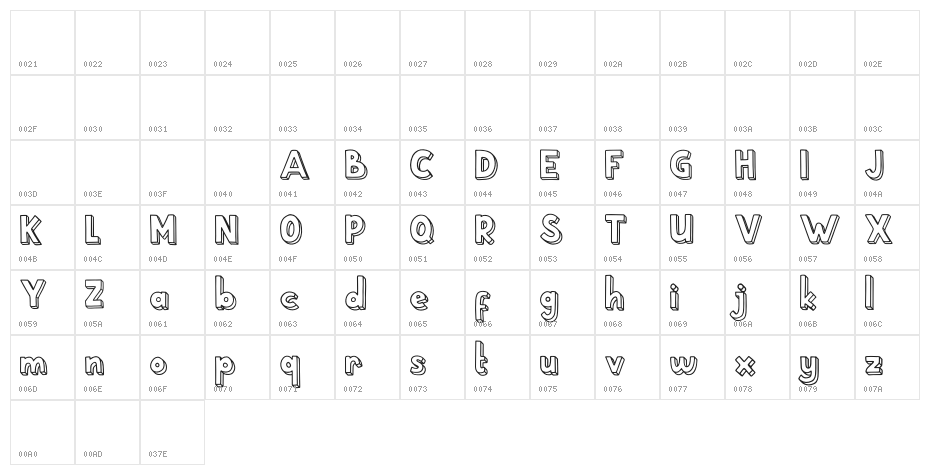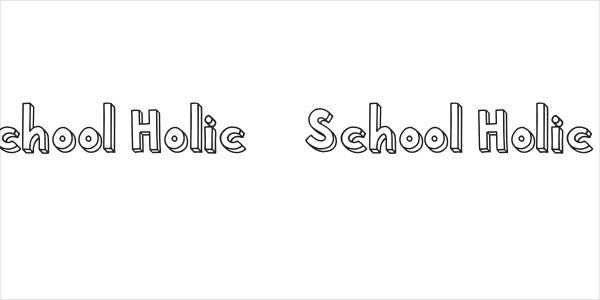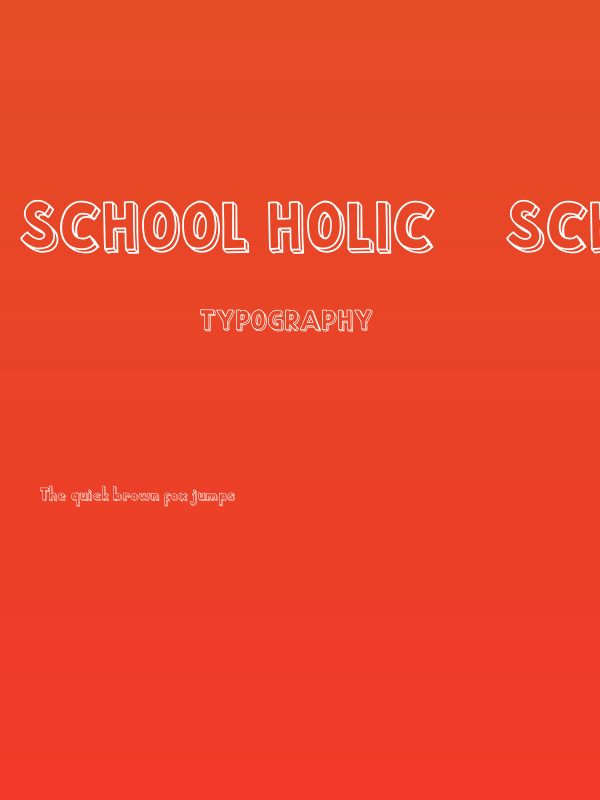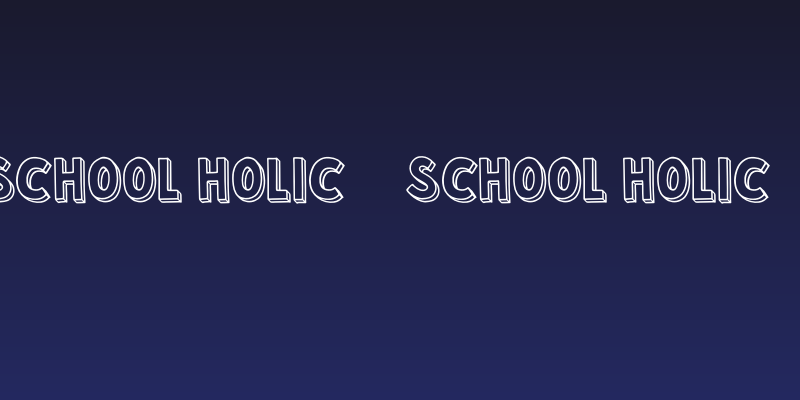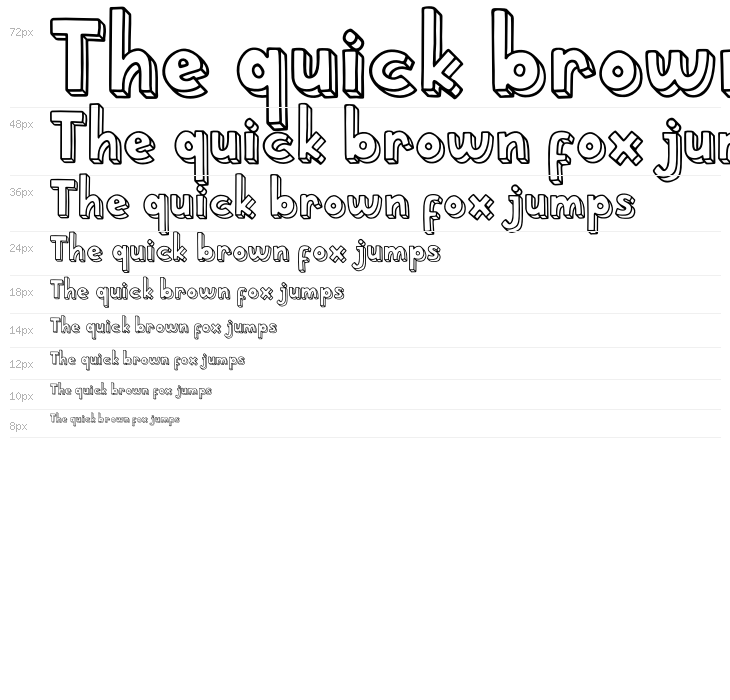
School Holic 4 Font
School Holic 4 Description
This playful and bold font features a unique hand-drawn style with a three-dimensional effect. The letters are outlined with a thick black line, giving them a cartoonish and whimsical appearance. Each character has a shadow-like effect that adds depth and interest. The font maintains a consistent width and height across all characters, ensuring readability while still being visually engaging. Its informal and fun design makes it perfect for projects that require a light-hearted and creative touch. The font's distinctive style is ideal for capturing attention and conveying a sense of playfulness.
| Use Case | Headlines, Posters, Educational Materials |
| Proposed Projects | Ideal for children's books, comic strips, playful posters, and educational materials. |